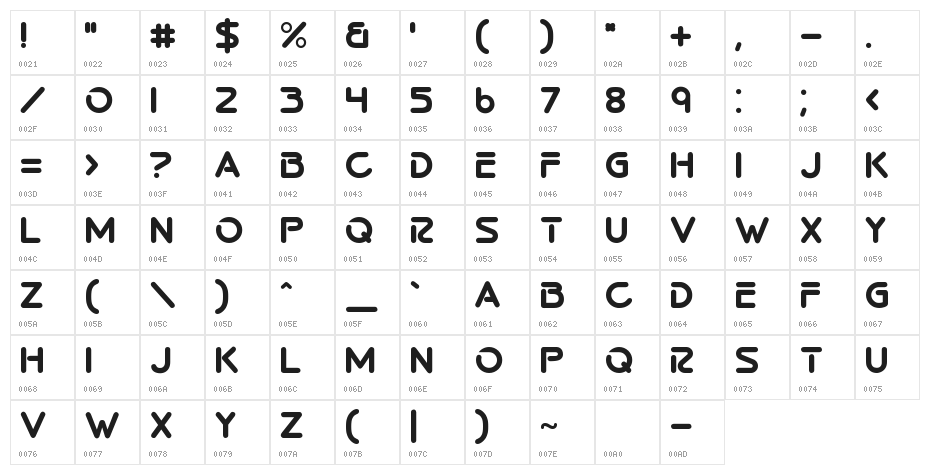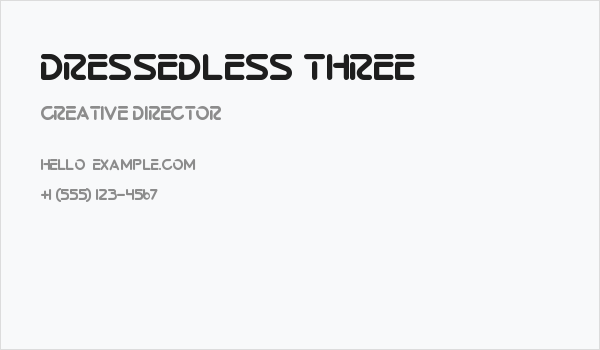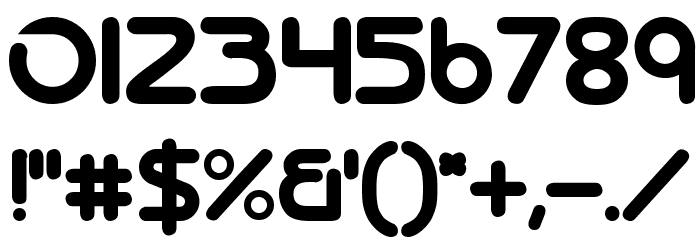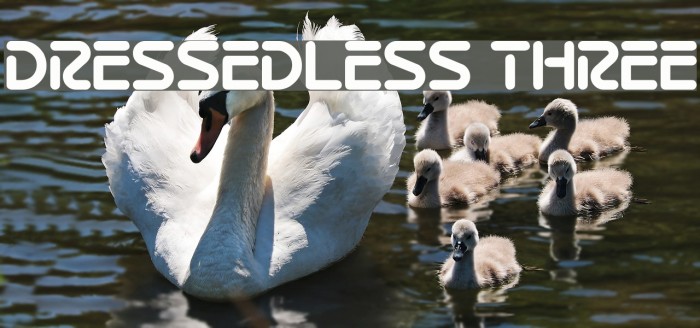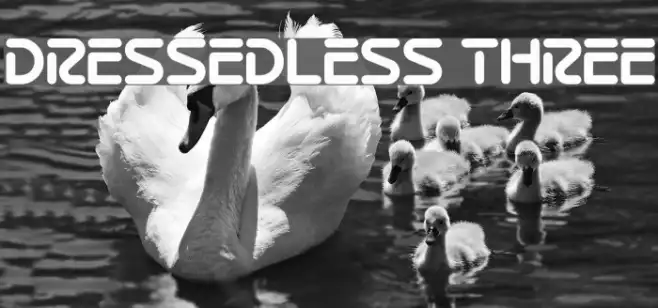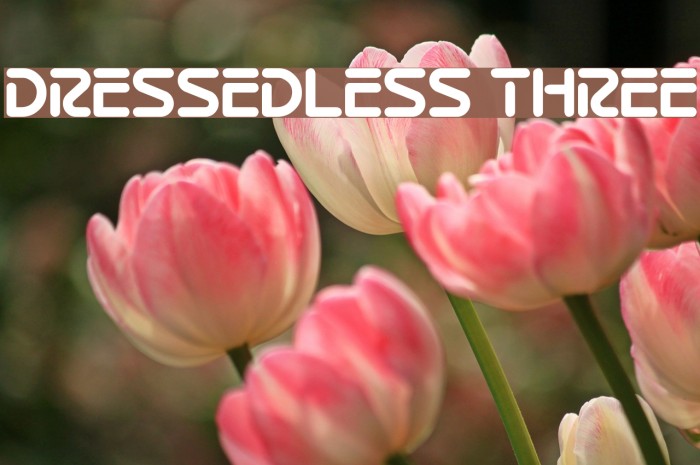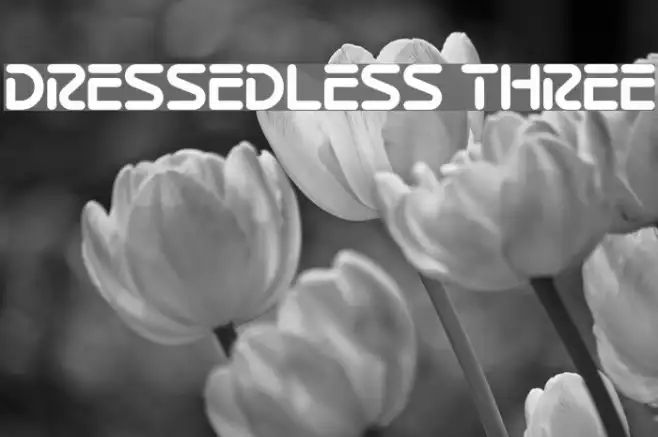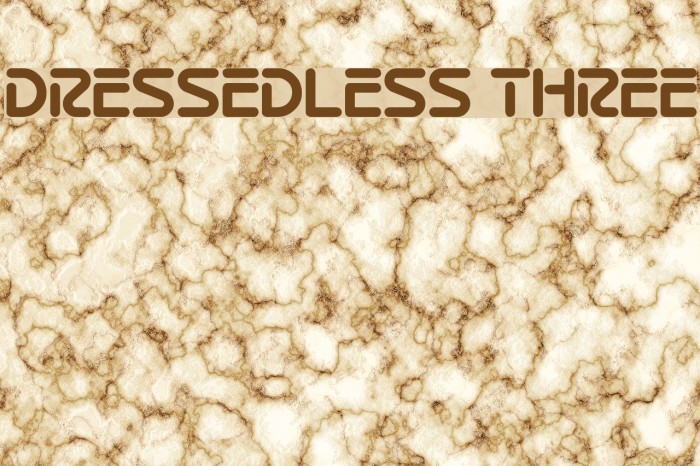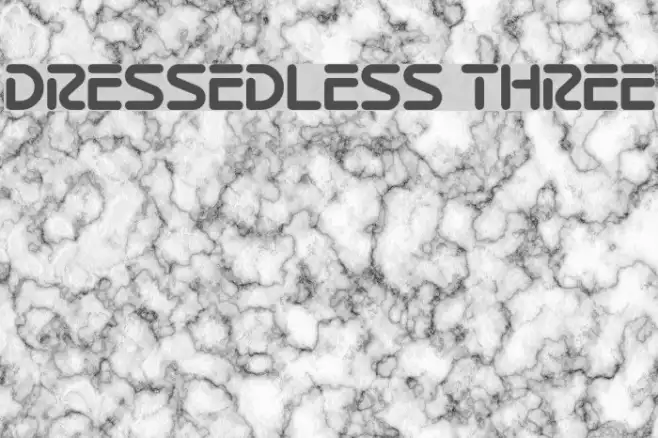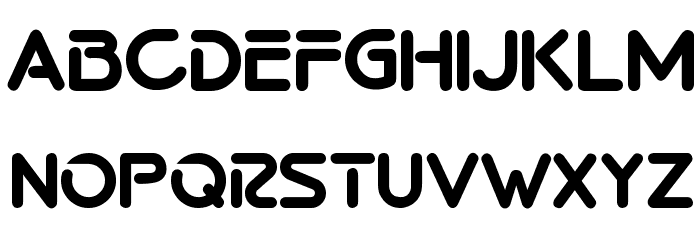
Dressedless Three Font
Dressedless Three Description
This font features a bold, rounded style with a futuristic and modern appeal. The characters are uniformly thick, creating a strong visual impact. The rounded edges and consistent stroke width give it a friendly and approachable feel, while maintaining a sleek and professional appearance. The numerals and special characters follow the same design principles, ensuring a cohesive look across all glyphs. Its geometric structure and smooth curves make it suitable for a variety of design applications, from digital interfaces to print media.
| Proposed Projects | Ideal for technology branding, digital interfaces, posters, and futuristic-themed designs. |